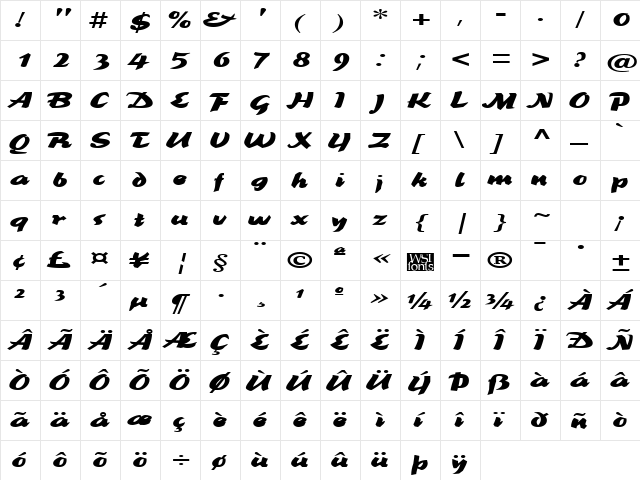
BrookscriptWide Regular
Design Context for BrookscriptWide Typeface
BrookscriptWide flows with the natural rhythm of handwritten lettering, making it ideal for designs that call for warmth and personal expression.
Font Pairing: Combine BrookscriptWide with a simple geometric sans for maximum contrast — the tension between flowing curves and clean structure is a classic typographic pairing.
Pro Tip: Pair BrookscriptWide with a clean sans-serif for supporting text. The contrast between fluid script and geometric structure creates an elegant typographic hierarchy.